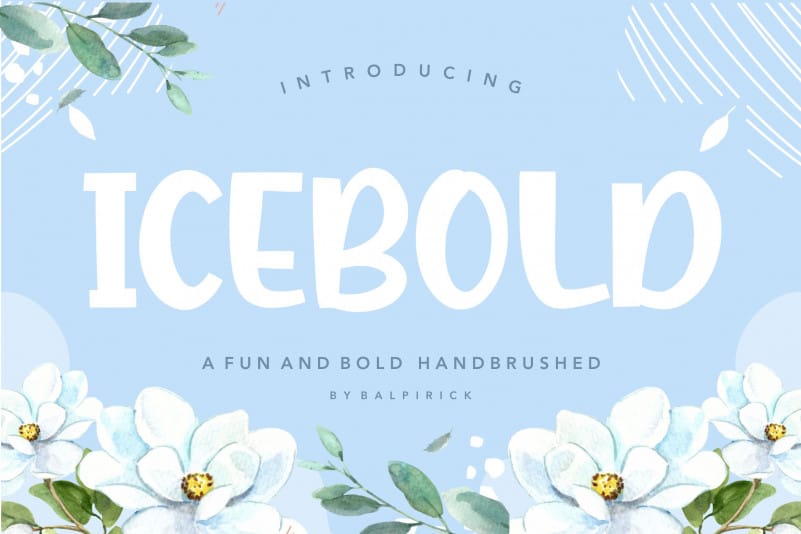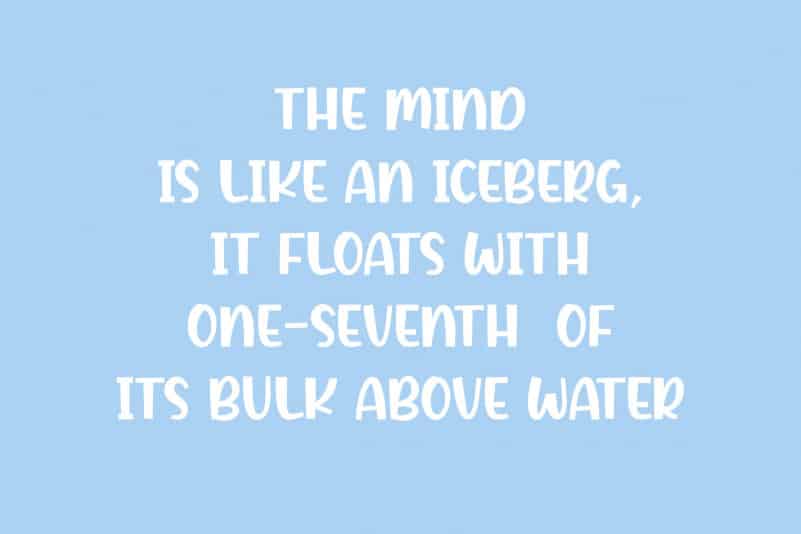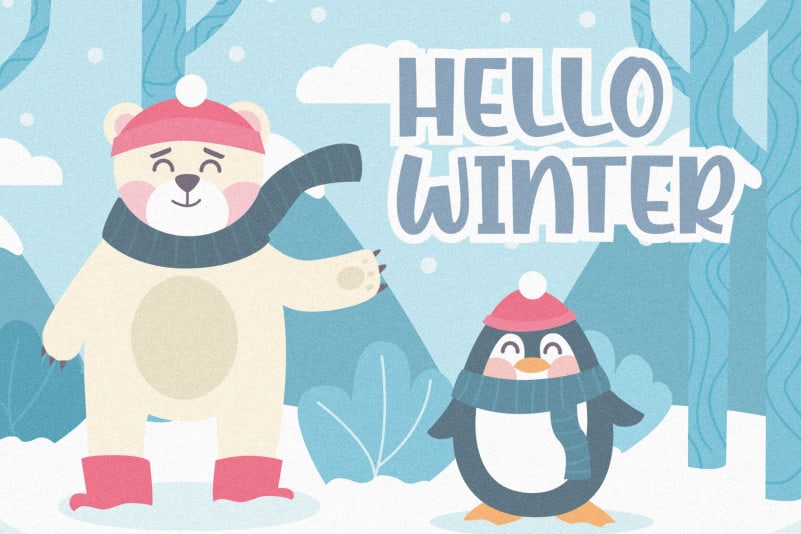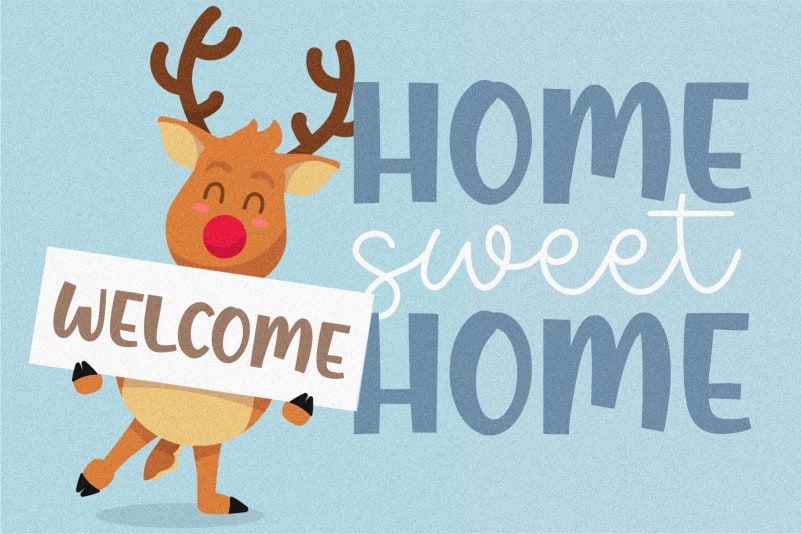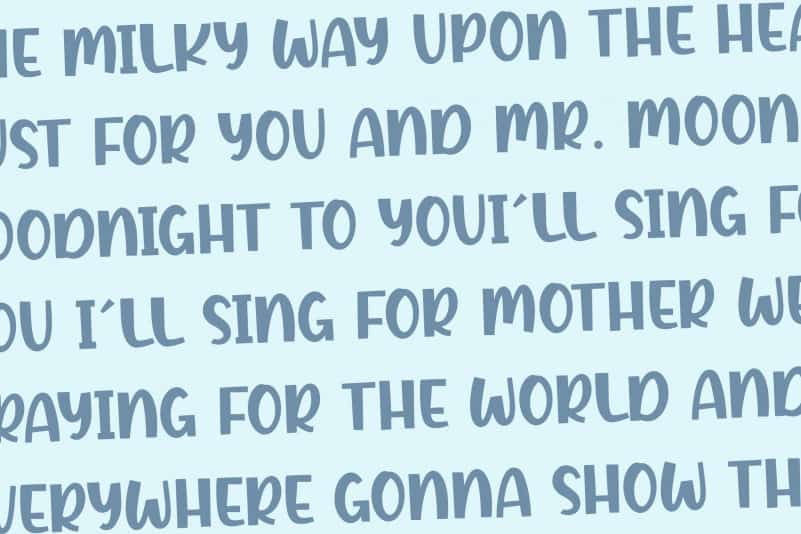
ICEBOLD Fun and Bold Handbrushed Font
Proudly Present, ICEBOLD Fun and Bold Handbrushed Font.
ICEBOLD is a Fun and Bold Handbrushed Font.
ICEBOLD is perfect for product packaging, branding project, megazine, social media, wedding, or just used to express words above the background.